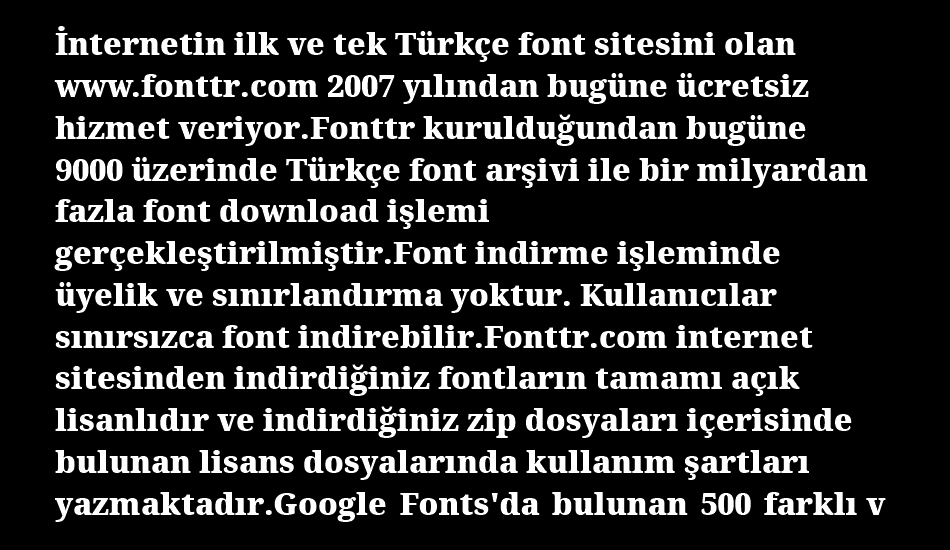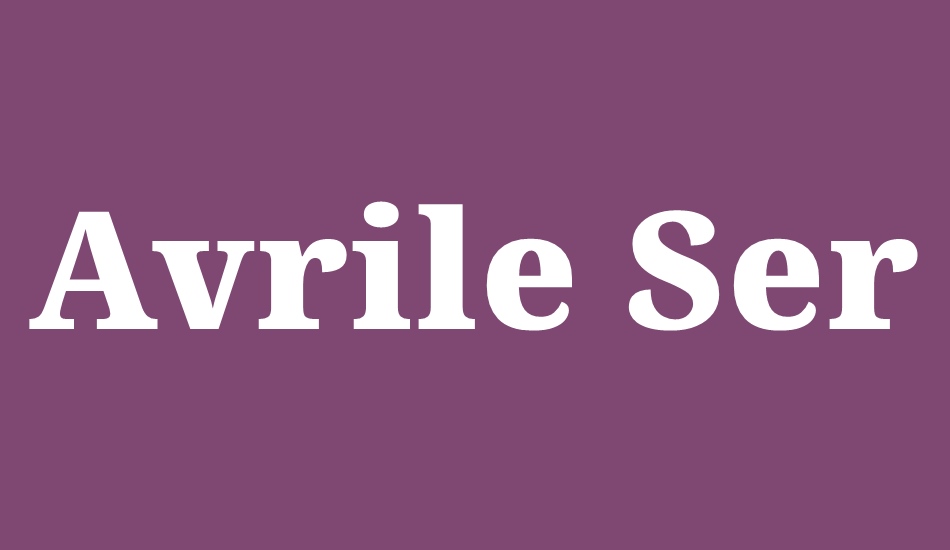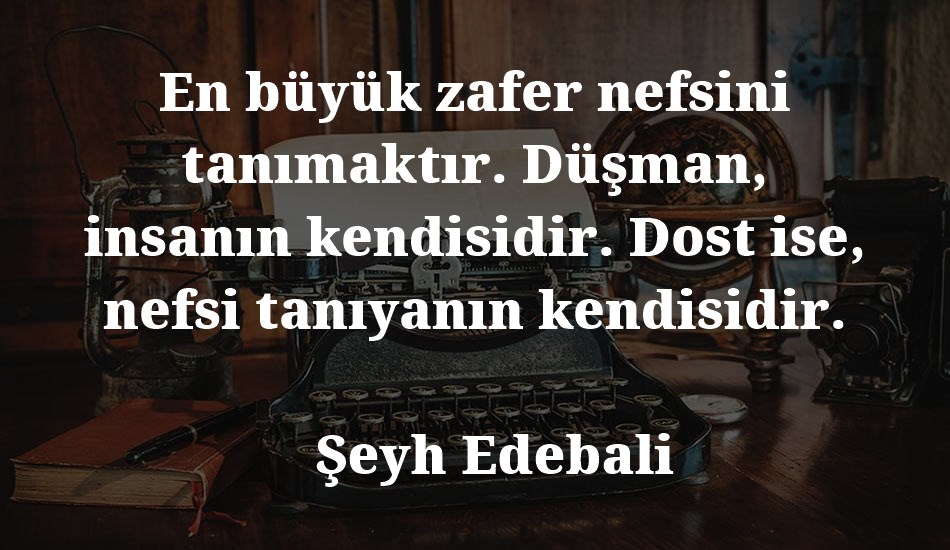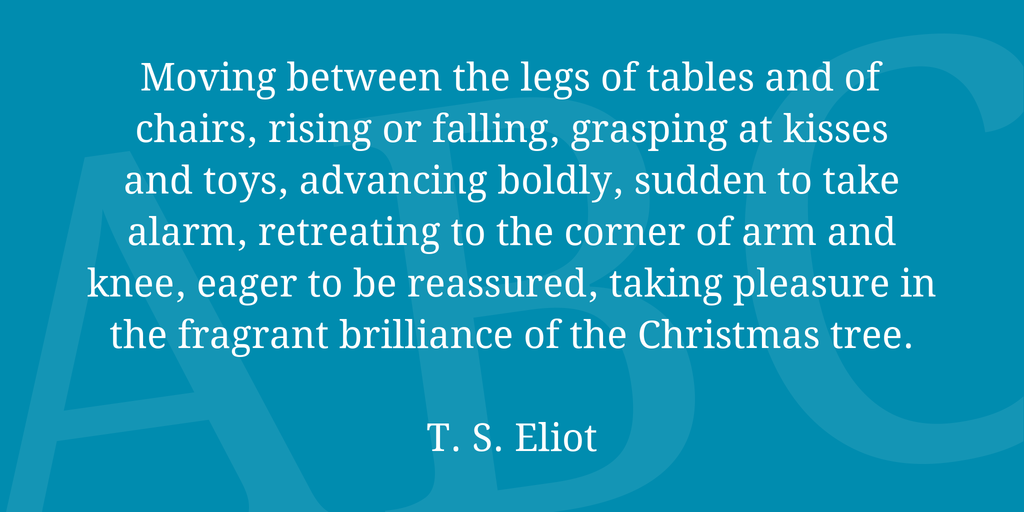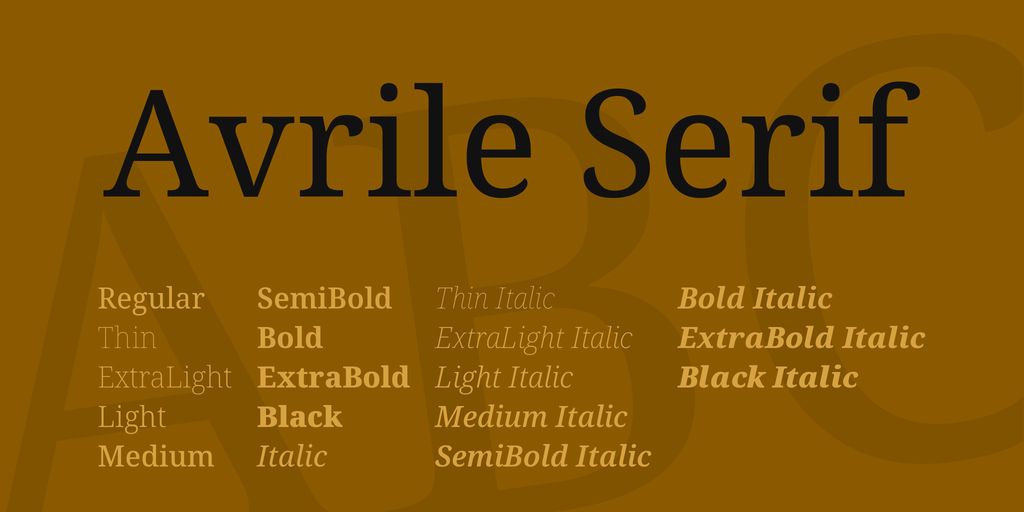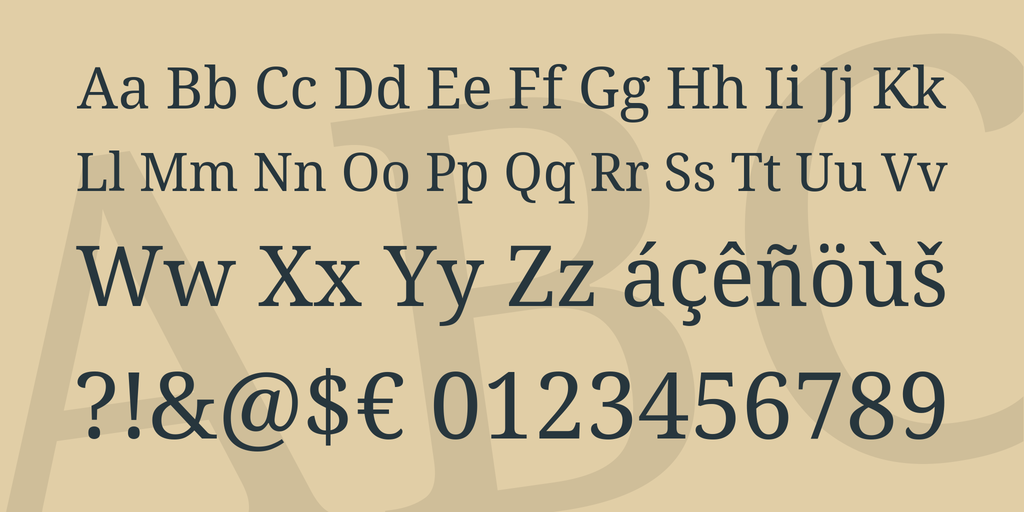
Avrile Serif Font Family font
Avrile Serif Font Family
Avrile Serif is developed over the Noto Serif fonts; with the main changes being duplexing all digits and dots. A
Noto Serif font already exists in this site, but it's severely outdated, so I forked the second version of the font and shared it here.